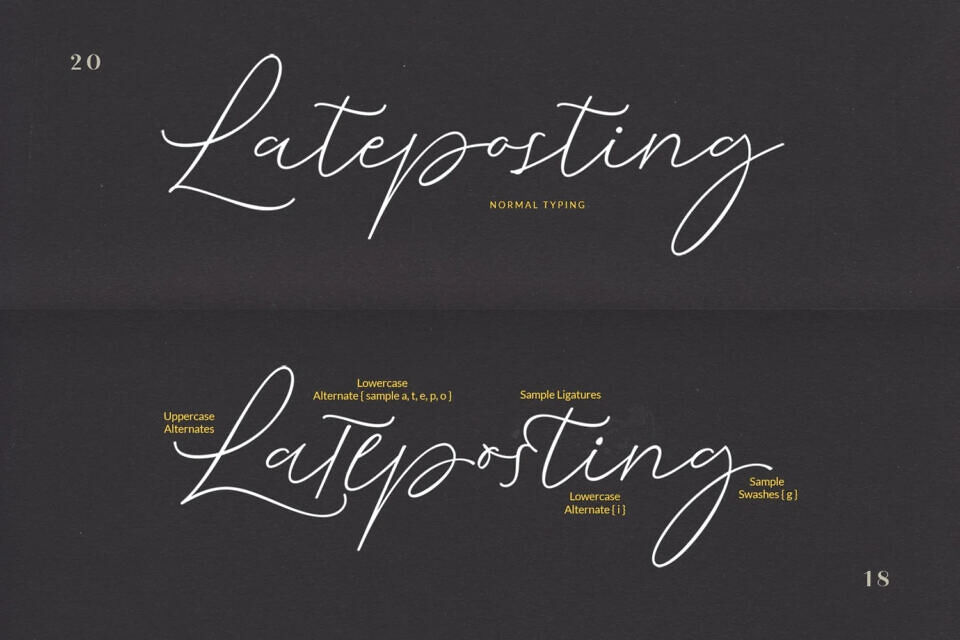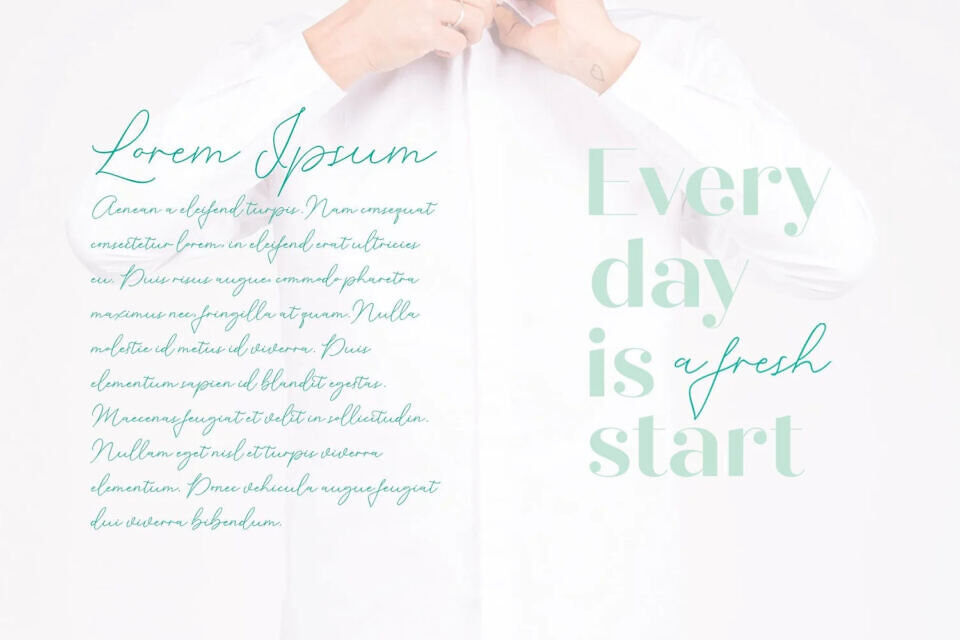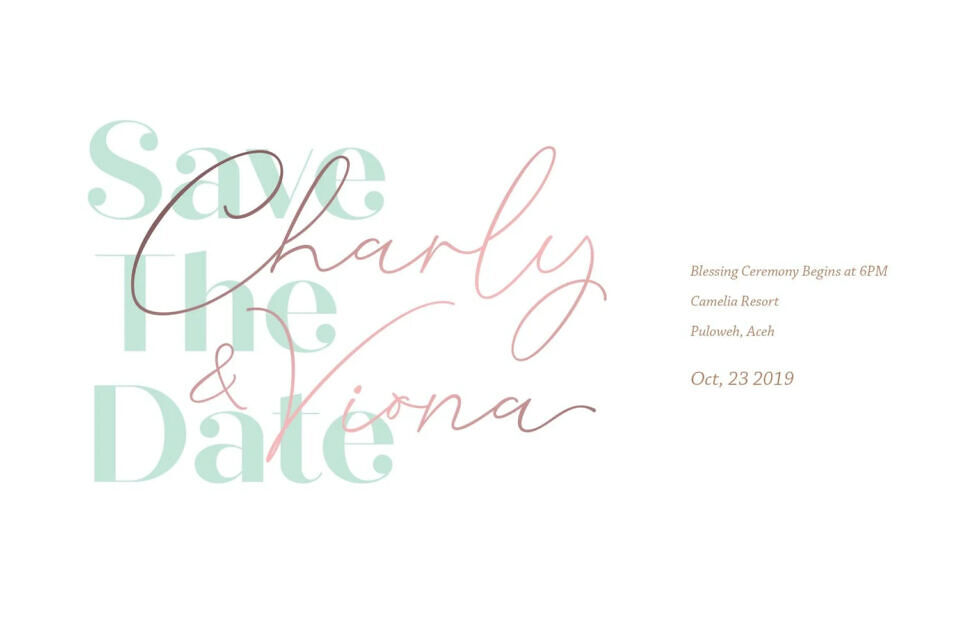
Introducing Cochocib Script, where elegance meets charisma in every stroke. This exquisite typeface isn’t just a font; it’s a symphony of sophistication and natural charm, designed to elevate your projects to new heights of refinement.
Picture a script font with a soft, flowing style that exudes class and grace. Cochocib Script adds a touch of distinction to any project, whether it’s branding, greeting cards, wedding invitations, banners, or even personalized name cards. Its versatility knows no bounds.